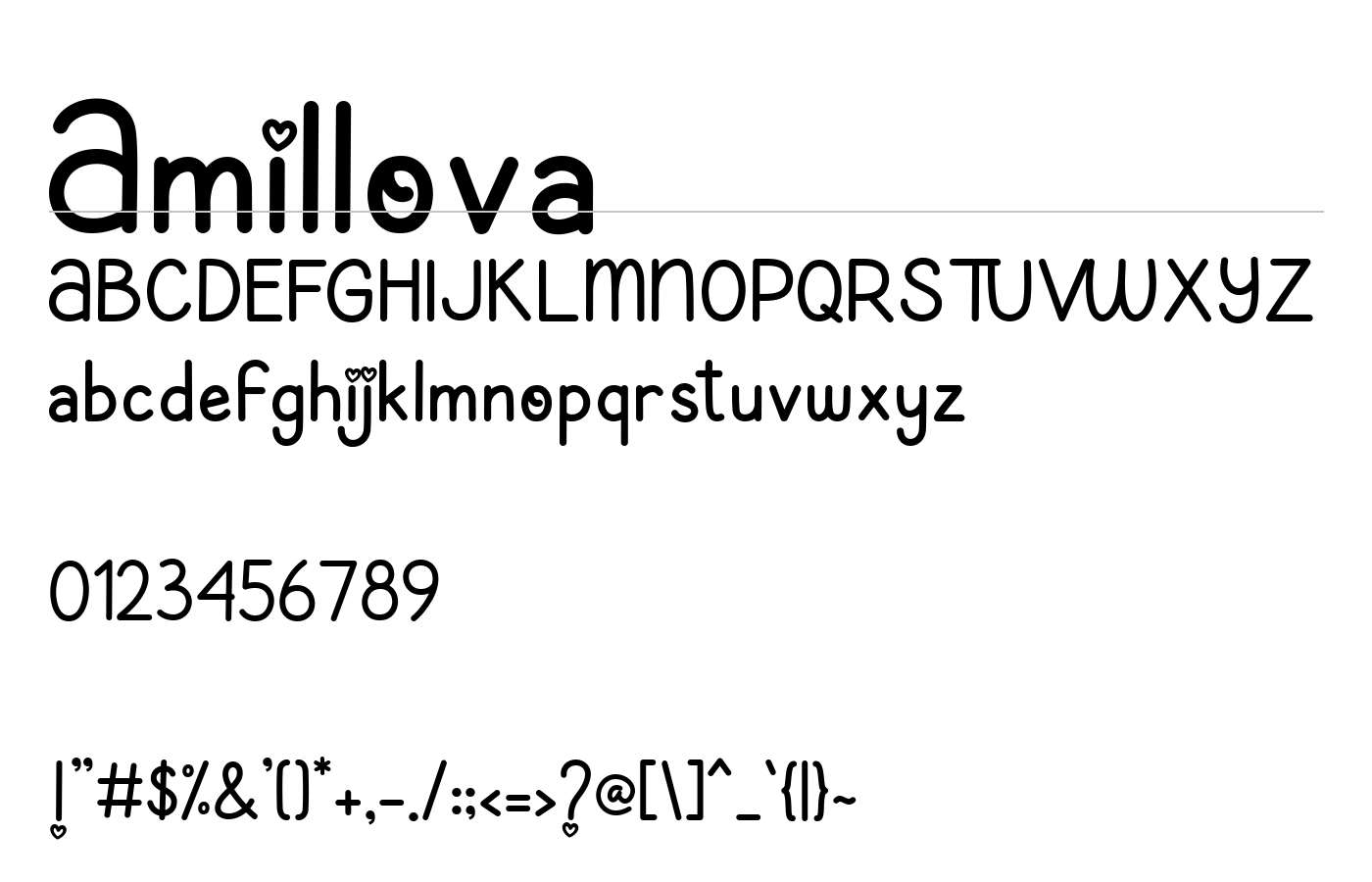
Amillova is a playful, rounded sans serif font with a light weight and a friendly, approachable personality. Its tall x-height and delicate stroke contrast, combined with charming details like heart shapes dotting the i and ampersand, create a whimsical, youthful feel perfect for casual branding, invitations, or children’s content. This font works best in logos, headlines, and creative projects that want to convey warmth and fun with a modern touch.
Amillova Font
About Amillova Font
| Font family | Amillova Font |
| Designer | AEN Creative Studio 2022 |